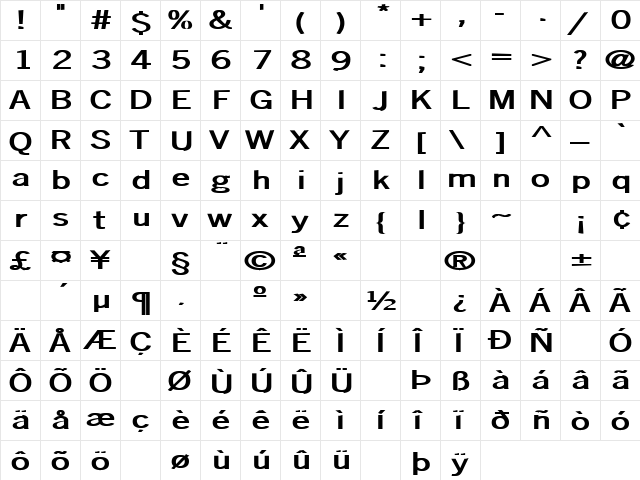
Breakdown 11 Bold
Design Context for Breakdown 11 Typeface
Breakdown 11 takes a measured approach to typography — its balanced proportions and neutral character make it a reliable workhorse for both digital and print work. The heavy weight commands attention and anchors typographic hierarchies.